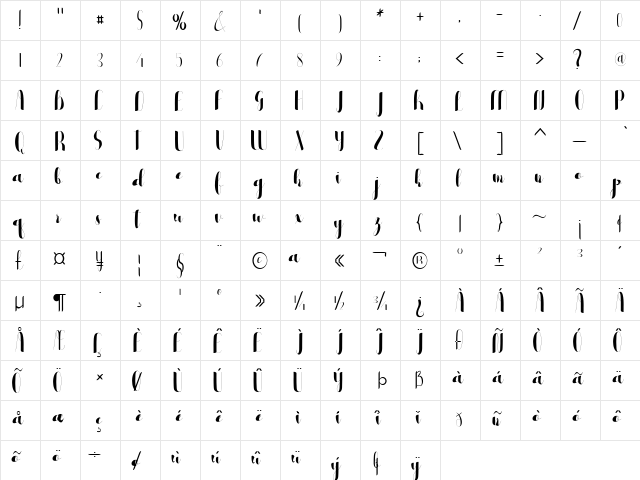
blester Regular
Design Context for blester Typeface
blester is a composed and adaptable typeface that performs quietly and consistently across a wide range of design contexts.